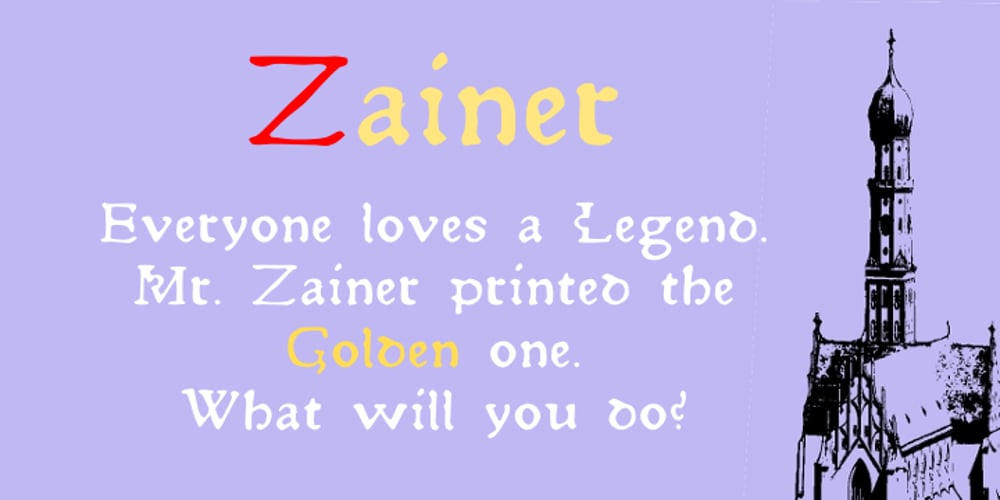
Zainer Font Family was designed by Shane Brandes and published by Proportional Lime. Zainer contains 2 styles and family package options. Günther Zainer, (or Zeyner or Zeiner), was the first printer to operate in the city of Augsburg. He was active from 1468 to his death in 1478. In that single decade he was responsible for printing 80 works. Most of these editions were for the clergy but he also printed the first Calendar and large-scale illustrated book intended for the wider public. This font is based on one of his more interesting and peculiar fonts. And it has been enlarged to include over a 1,000 defined glyphs for modern use and also for historical purposes many glyphs recommended by the Medieval Unicode Font Initiative organization have also been included.